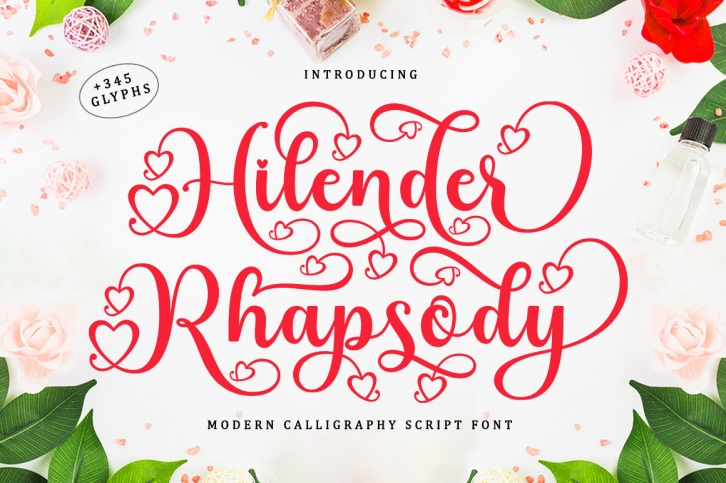
Hilender Rhapsody is a romantic and stylish script font. Trendy and stylish, this font will elevate each of your creations. Hilender Rhapsody is PUA encoded which means you can access all of the glyphs and swashes with ease!